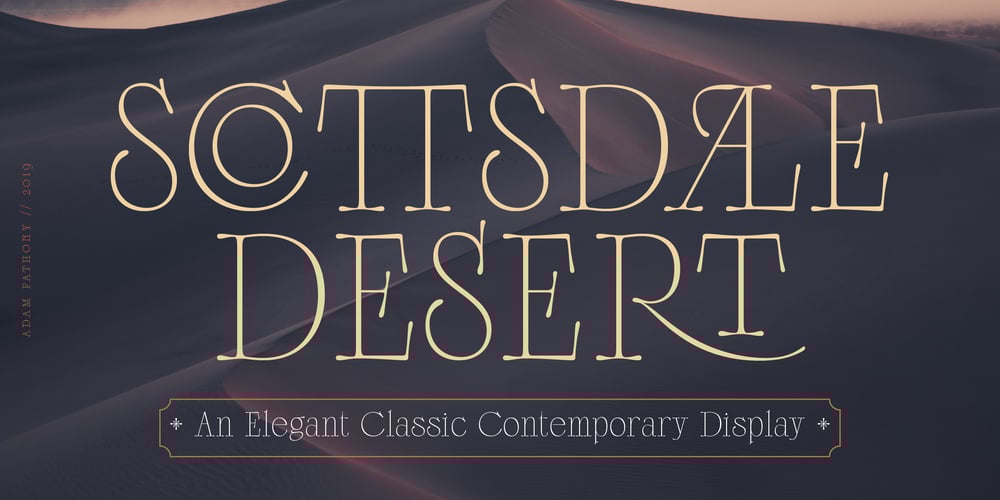
Scottsdale Desert Font Family was designed by Adam Fathoni Haris and published by Adam Fathony. Scottsdale Desert contains 1 styles and family package options. Scottsdale Desert is inspired by a classic contemporary Display combined with a simple modern Serif look. It’s a versatile font, it can be used for a lot of design styles. Characteristic for Scottsdale are the small to bigger rounded serif strokes that make it look sharp and comfy. Thin, light strokes define the modernity and simplicity of the typeface itself. The OldStyle Numerical match with the characteristic of this fonts. Using Scottsdale Desert’s lowercases for a long text will work, but it is at its best as Header or Display. Scottsdale Desert comes with most OpenType Features: – Powerful ligatures as Discretionary Ligatures – Stylistic Alternates on Uppercase and Lowercase – Contextual Swashes adding a Terminal (first swash) on the First Uppercase letters – Small Capitals (can be operated with the Titling Alternates button) – Catchword are created with Contextual alternates (see the images to show how it works). – Punctuation and Symbol are perfectly matched with all letters – Numerical features are available : Tabular Figures Numerator Denominator Superscript/Superior -Subscript/Inferior and Fraction.